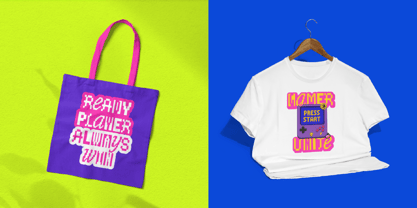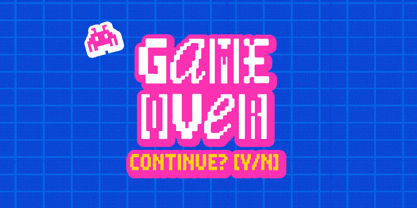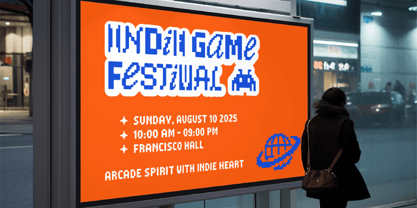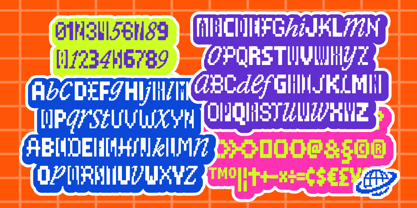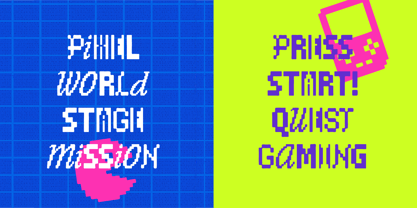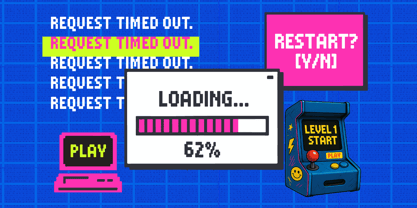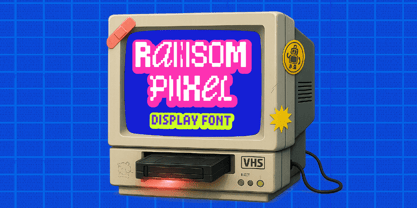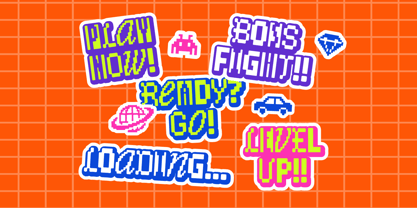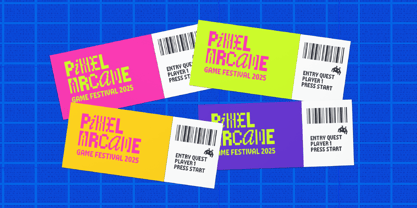
Ransom Pixel
by Edignwn Type
The Ransom Pixel Font Family was designed by Edi Gunawan and published by Edignwn Type. Ransom Pixel contains 1 styles.
Ransom Pixel is a display typeface crafted for designers who thrive on retro game vibes and bold branding. This ransom-inspired font is built from 4 pixel-styled cuts, offering maximum flexibility in creating contrasting typography and allowing designers to mix and match for striking results. Whether for gaming events, indie titles, or nostalgic merch design, Ransom Pixel brings digital nostalgia and an experimental edge into modern design. Ransom Pixel includes: - 4 styles of pixel ransom typefaces - Uppercase, lowercase, numerals, symbols, and punctuation - Alternate character set for extra variation - Multilingual support - PUA encoded for easy access